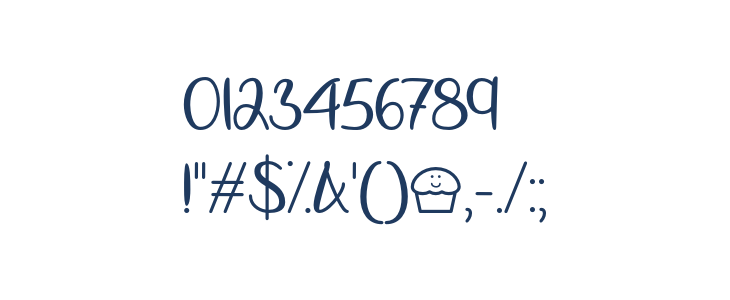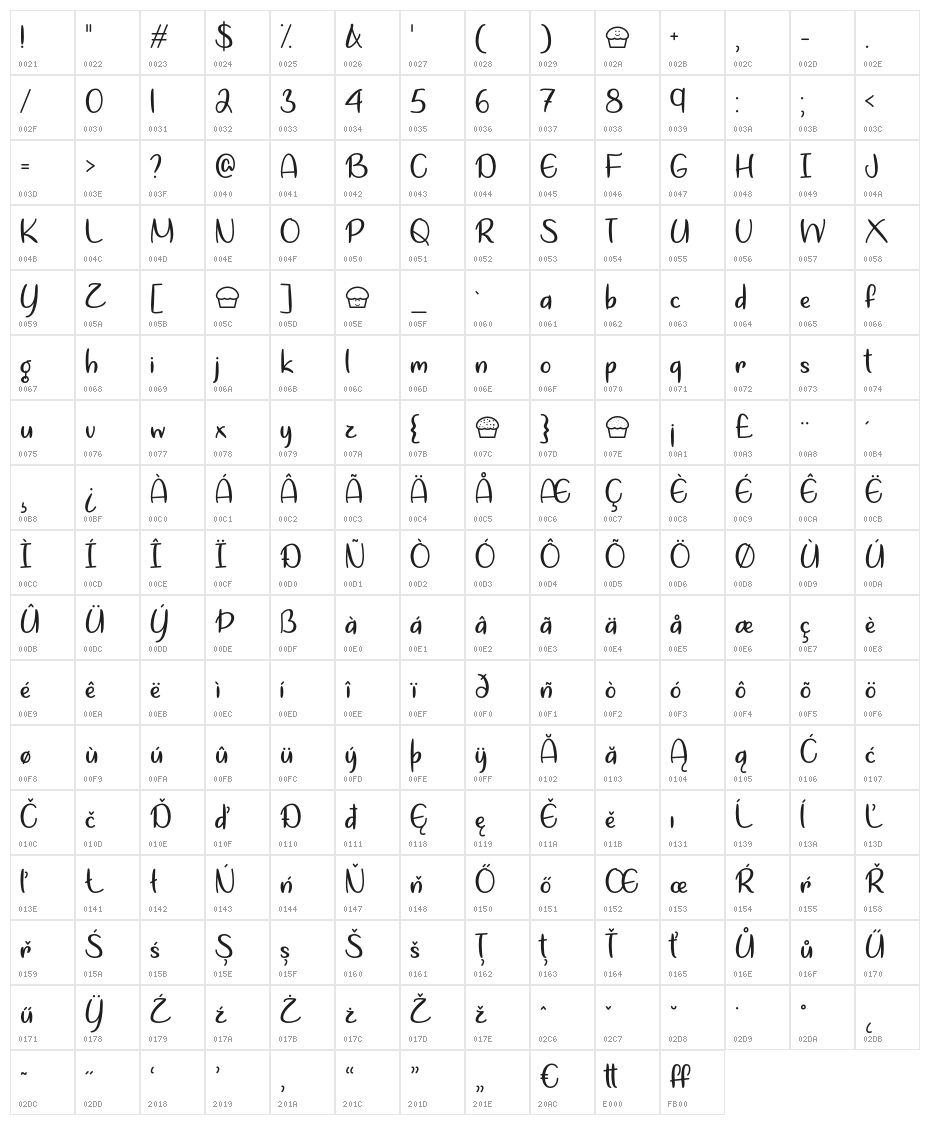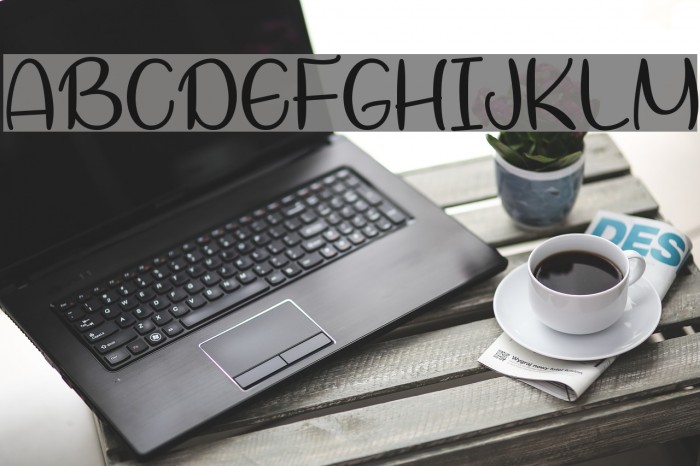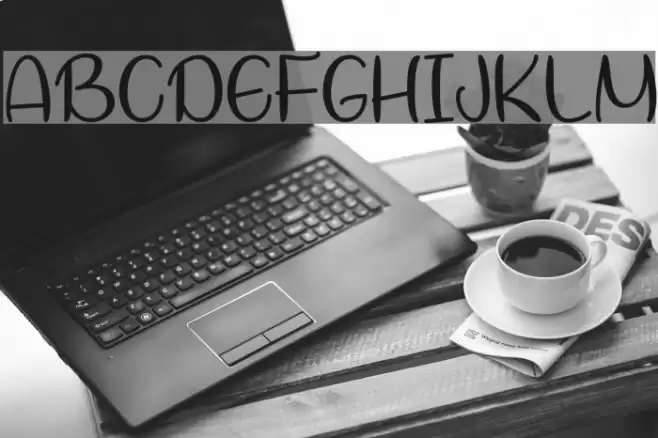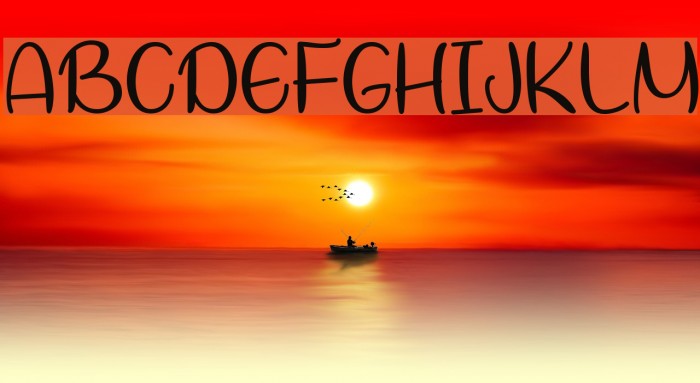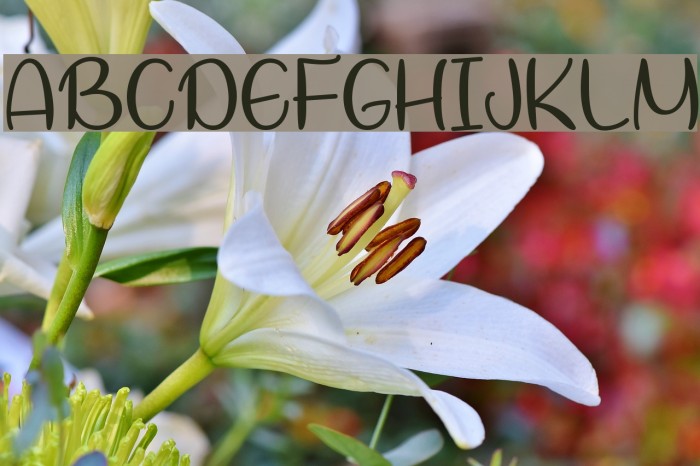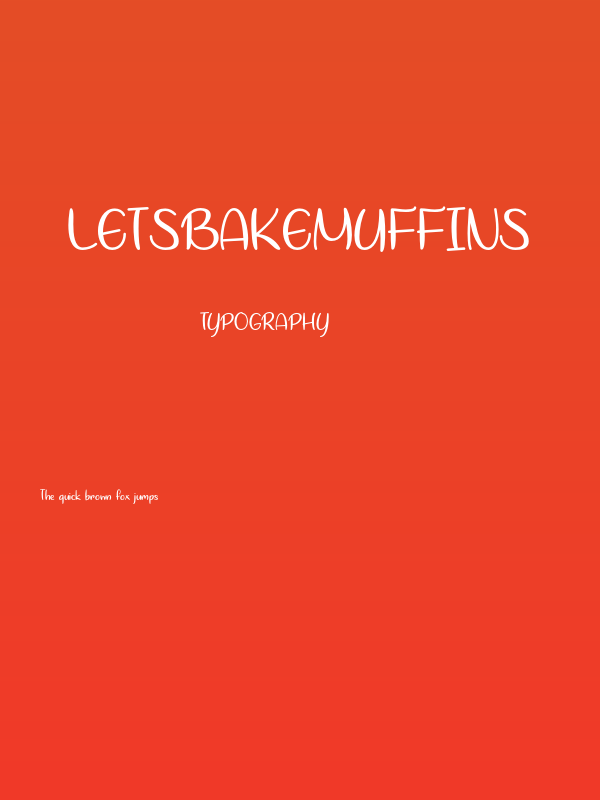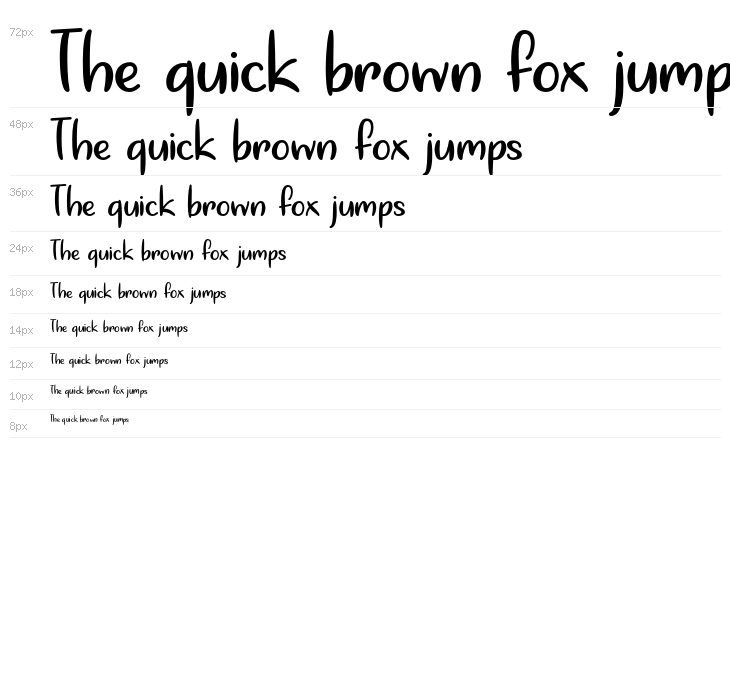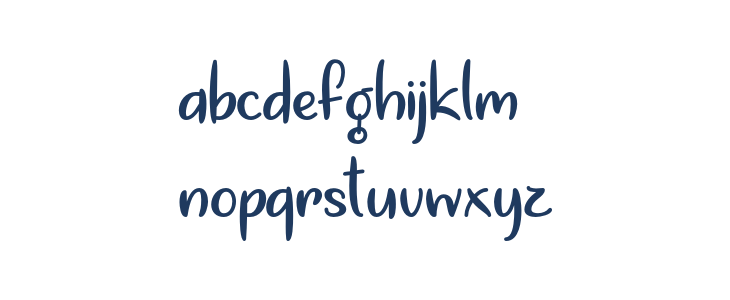
LetsBakeMuffins Font
LetsBakeMuffins Description
This playful and whimsical font features a handwritten style with a casual and friendly appearance. The characters are slightly rounded with a smooth flow, giving it an approachable and informal vibe. The uppercase and lowercase letters maintain a consistent style, with a slight slant that adds to the dynamic feel. The numerals are clear and easy to read, matching the overall aesthetic. Special characters are creatively designed, adding a touch of fun and personality. This font is perfect for projects that require a light-hearted and engaging touch.
| Proposed Projects | Ideal for greeting cards, children's books, playful branding, and social media graphics. |